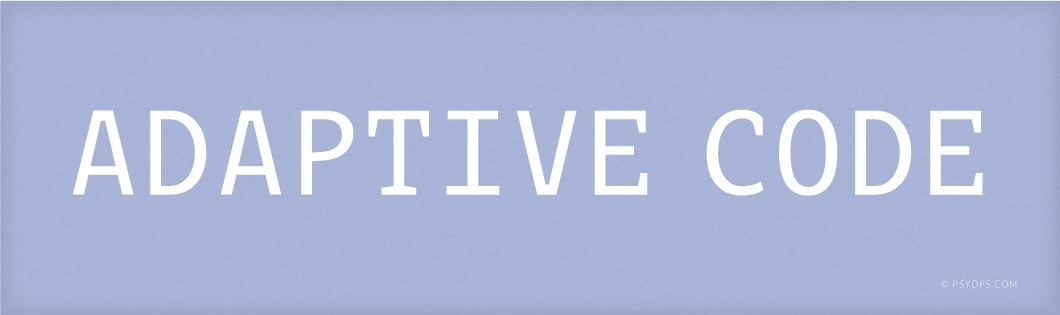
The original Adaptive Mono typeface was developed for a web-building engine in 1999. A mere eleven years later, the Regular weight has been rebuilt as a dedicated coding font. The new offshoot includes optimized / differentiated alphanumerics, beefed up symbols and punctuation, and reduced vertical-horizontal contrast. The variable-serif construction and humanism of the original Adaptive typeface are still present, though, so the uniqueness is still there.
The Adaptive Code fonts contain Western and Eastern European characters, ligatures, mathematical symbols, and more.